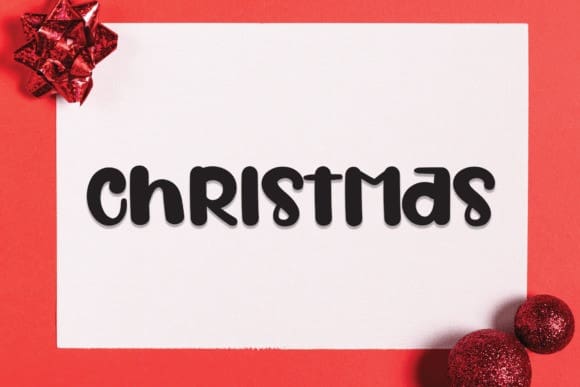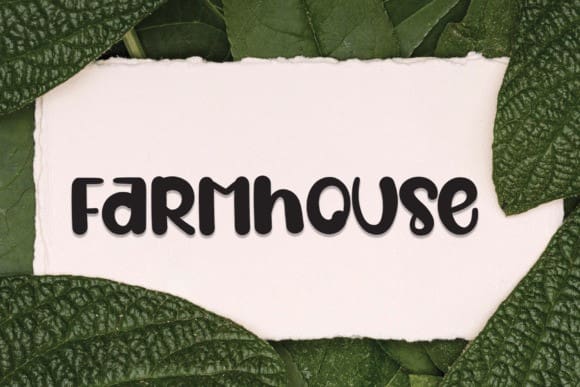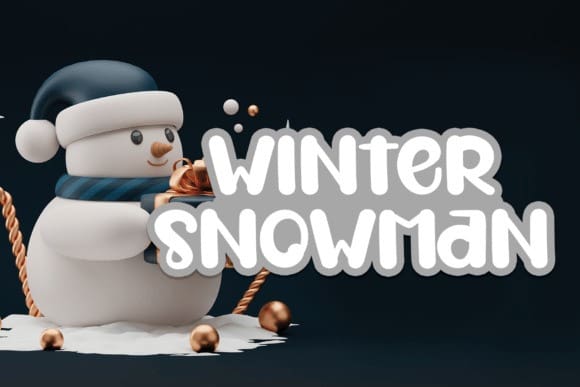
Winter Snowman Font
Winter Snowman Font is a simple and friendly handwritten display font. Whether you’re using it for crafts, digital design, presentations, or creating greeting cards, this font has the potential to become your go-to font, whatever the occasion.